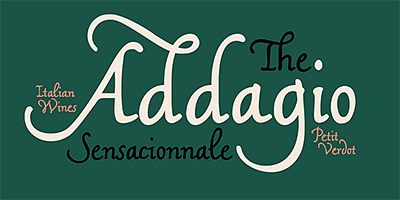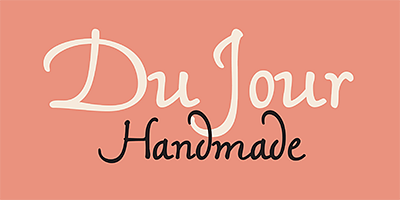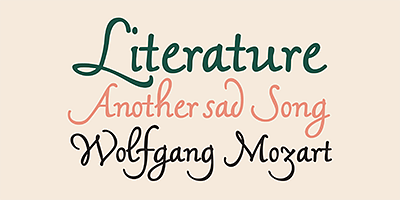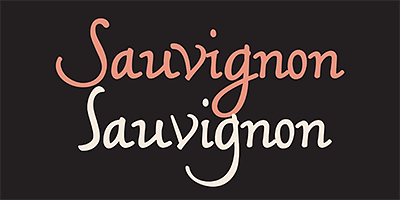
Initially an experiment in vertical calligraphy, Mama Script was developed by drawing on multiple sources of inspiration. These range from simple swashy handwriting, lettering and signage, to the works of renowned calligraphers. This script likes to stand out everywhere it appears.Mama Script comes with a full set of alternates, as well as many ligatures for precise display use and a simulated balance between the hand and the machine.